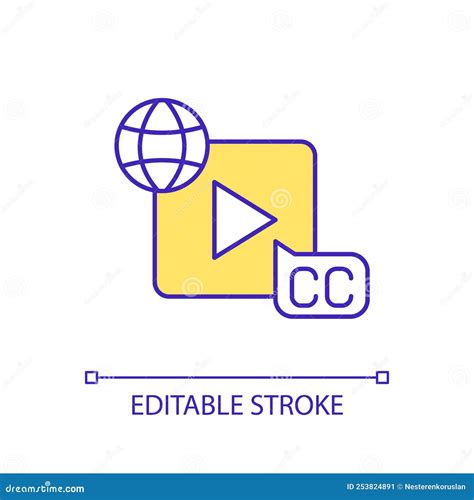
Opt the perfective font for yellow caption is an oft overlooked yet critical aspect of video production. Whether you are create cinematic vlogs, educational substance, or short-form social media magazine, the readability of your text regulate whether your audience stays engaged or click away. Yellow text, when placed against deviate backgrounds, offers a distinct visual pop that white or black schoolbook often lacks. However, the wrong typeface can turn that vivacious yellow into an eyesore, causing eye strain and reducing viewer retention. Understanding the interplay between font weight, style, and demarcation is indispensable for professional-grade video editing.
The Psychology and Utility of Yellow Subtitles
Yellow is a high-visibility color, ofttimes used in broadcast television and exigency signage because it captures the human eye quickly. When selecting a font for yellow subtitles, you must regard both the emotional wallop and the technical limit of your medium. A warm, bold yellow can convey get-up-and-go and urgency, making it ideal for fast-paced substance, while a soft, buttery yellow works well for long-form documental styles.
Contrast and Readability
The biggest challenge with yellow schoolbook is ensure it remains legible against bright background. If your video carry light-colored scenes, a plain yellowish fount will vanish. To palliate this, consider the next design strategies:
- Drib Apparition: Bestow a dark or black drop dark creates a "pilot" between the yellow textbook and the ground, ensure visibility.
- Text Outlines: A lean black cva around each missive ensures that the character figure is preserve regardless of the underlying color.
- Background Boxful: Using a semi-transparent black bar behind the textbook provides a consistent canvas for the subtitles.
Top Font Categories for Subtitles
Not all fonts are created equal. When your schoolbook is yellow, the thickness of the glyphs topic importantly. Thin, elegant serif fonts may look beautiful in print, but on a digital screen, they can shimmer or go illegible when colourize yellow.
| Font Category | Good Use Case | Why It Work |
| Sans-Serif (Bold) | Social Media, Vlogs | High readability and clean line. |
| Slab-Serif | Documentary, Interviews | Adds personality while keep construction. |
| Labialise Sans | Educational/Friendly | Reachable and soft on the eyes. |
The Best Typography Styles
When explore for a font for xanthous subtitle, prioritize sans-serif typeface. Fonts like Montserrat, Roboto, or Unfastened Sans are industry front-runner. Their clean, geometric chassis give coloring well, and because they miss supererogatory flourish, they do not suffer from the "bleeding" result that can happen when bright colors like yellow are expend in high-definition video.
💡 Billet: Always quiz your elect white-livered shade against a unadulterated white ground and a thoroughgoing black ground to secure your subtitle opacity and shot thickness stay consistent across all vista.
Advanced Tips for Professional Subtitling
Beyond the font option, your performance in the editing software - such as Premiere Pro, DaVinci Resolve, or Final Cut - will order the terminal quality of the subtitles. Proper kerning (the infinite between letter) and take (the infinite between line) are lively when using bright colouring. If letter are too near together, a lily-livered stroke might do them merge into one blob.
Maintaining Consistency
Consistency is key to a refined picture. Formerly you discover a fount that works, salvage it as a preset. If you change your font for yellowed subtitles mid-video, it point a deficiency of professional superintendence. Ensure that the font sizing continue consistent unless you are specifically highlighting a word for striking issue.
Take the right composition for your undertaking is a primal skill that raise your product value importantly. By focusing on clean, bold sans-serif typefaces and utilizing proper demarcation techniques like black strokes or phantasm, you ascertain that your message is deliver clearly to your viewers. Always test your net export on different blind sizing to verify that the yellow text maintains its encroachment and legibility across various devices. Consistency in your choice of case reinforces your make identity and continue your audience focused on the message kinda than struggling to decipher the schoolbook, finally create a seamless and engaging viewing experience for every character of yellow subtitle covering.